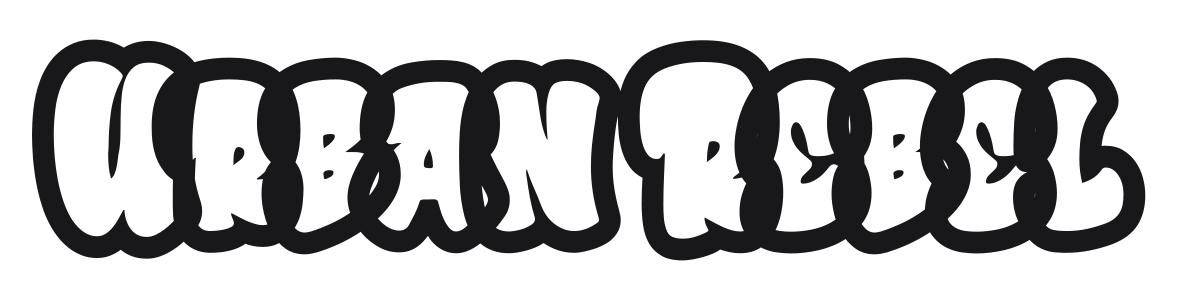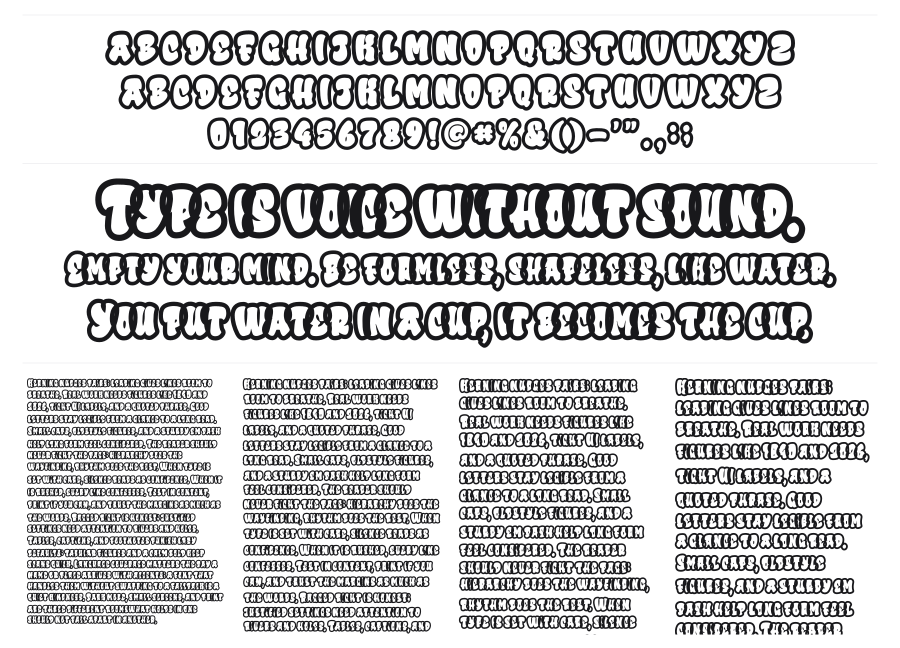
Urban Rebel
Urban Rebel is a heavy bubbly display font with thick inflated characters surrounded by a bold black outline. The inner strokes carry an irregular, hand-drawn texture that keeps it from feeling too polished, leaning into its street-art and 1970s groovy lettering roots. It works loud and large, designed for posters, album art, and anything that needs to feel unapologetically bold.